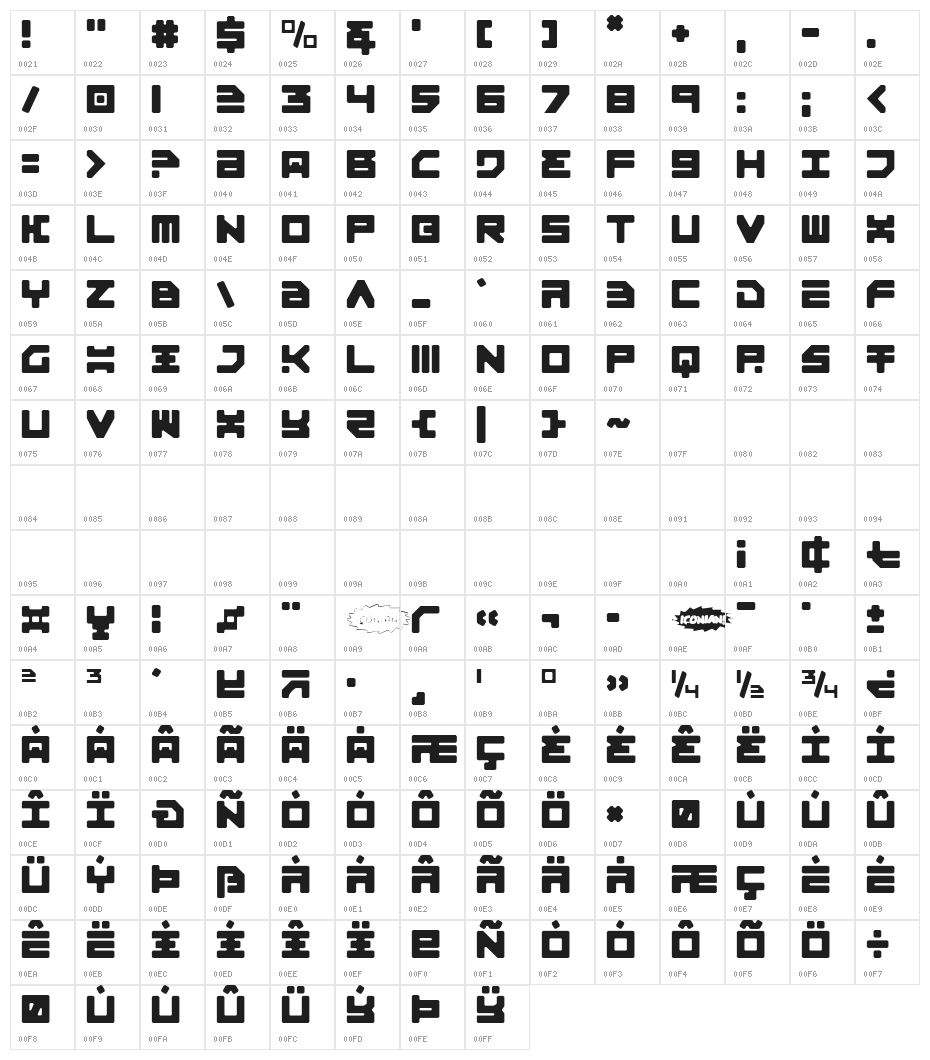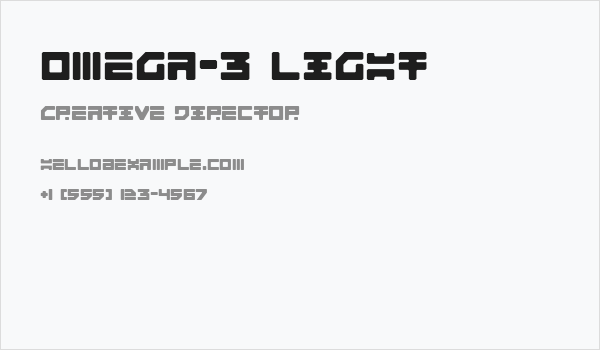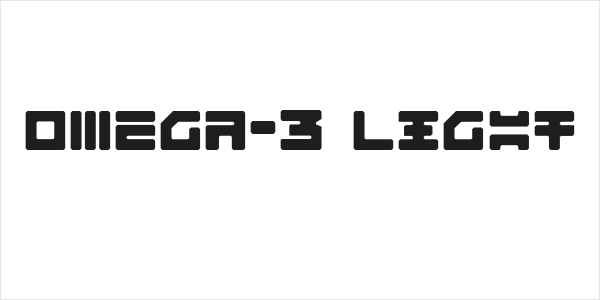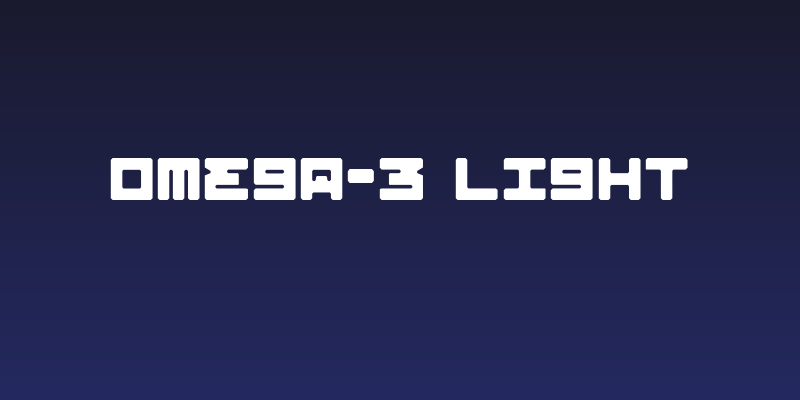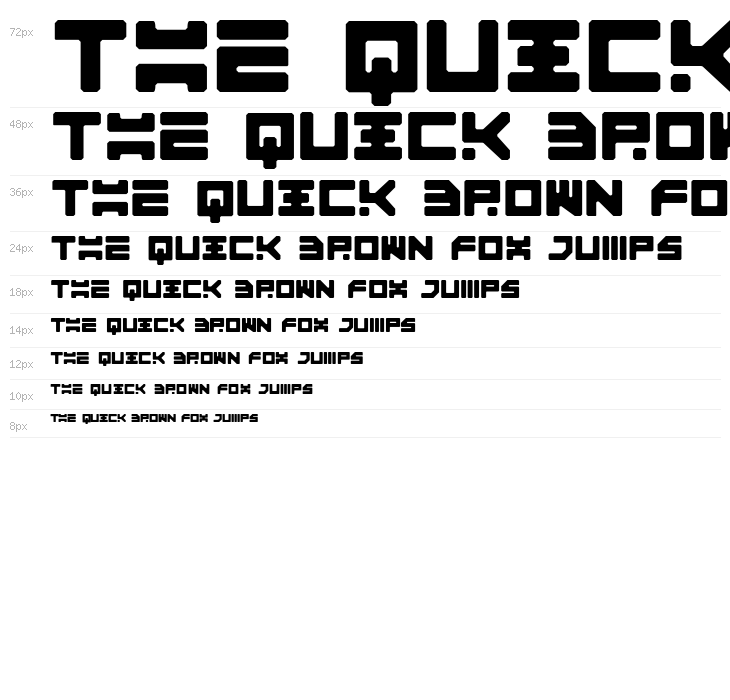
Omega-3 Light Font
Omega-3 Light Description
This font features a bold, futuristic design with geometric shapes and a strong presence. The characters are constructed with thick, uniform strokes, creating a robust and impactful appearance. The style is reminiscent of digital or sci-fi themes, with a modern twist that makes it suitable for contemporary designs. The uppercase and lowercase letters maintain a consistent width, contributing to a cohesive look. The numerals and special characters are designed to match the overall aesthetic, ensuring a seamless integration across various uses.
| Proposed Projects | Ideal for technology branding, sci-fi movie posters, video game titles, and digital media. |